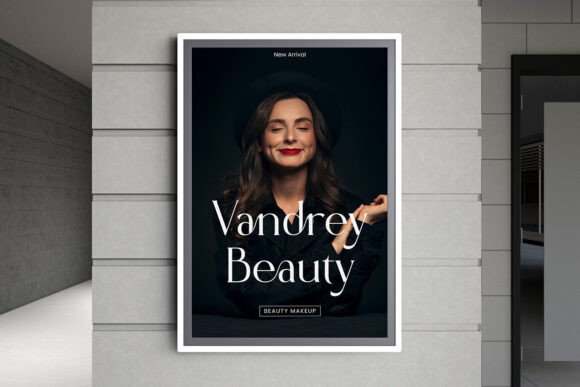
Unleash the Power of Contemporary Sophistication with Amorfatia Font
In the world of typography, fonts play a crucial role in conveying the tone and personality of a brand, product, or artistic project. With the numerous font options available, finding the perfect one that balances elegance, sophistication, and modernity can be a daunting task. However, if you’re looking for a font that effortlessly fuses classical charm with avant-garde flair, look no further than Amorfatia Font.
Introducing Amorfatia: A Striking Serif Display Font
Amorfatia is a meticulously crafted serif display font that exudes an intellectual allure and luxurious charm. With its balanced proportions and delicate lettering, this font is perfect for those seeking to make a statement with their visual identity. Whether you’re a designer, artist, or brand owner, Amorfatia offers a unique blend of firm yet tender nature that commands attention and respect.
The Perfect Blend of Classical and Modern Elements
Amorfatia’s design is rooted in the perfect blend of classical and modern elements. The font’s serif structure pays homage to traditional typography, while its sleek lines and curves inject a modern twist. This harmonious fusion results in a font that is both timeless and contemporary, making it suitable for a wide range of applications.
Key Features of Amorfatia Font
- Balanced Proportions: Amorfatia’s letters are carefully crafted to ensure balance and harmony, creating a visually appealing effect.
- Delicate Lettering: Each letter is meticulously shaped to impart an intellectual allure and luxurious charm.
- Alternative Characters and Ligatures: Amorfatia offers a range of alternative characters and ligatures, providing high levels of design versatility.
- Fluid Versatility: The font’s design allows for seamless adaptability across various applications, from brand identity to social media.
Applications of Amorfatia Font
Amorfatia’s versatility makes it an impeccable choice for a broad spectrum of applications, including:
- Brand Identity: Establish a strong visual presence with Amorfatia’s elegant and sophisticated design.
- Editorial Pieces: Elevate your publications with Amorfatia’s luxurious charm and intellectual allure.
- Logo Design: Create a lasting impression with Amorfatia’s unique blend of classical and modern elements.
- Product Packaging: Add a touch of sophistication and elegance to your product packaging with Amorfatia.
- Social Media: Stand out in the vibrant world of social media with Amorfatia’s visually elegant and intensely modern presence.
The Benefits of Using Amorfatia Font
By choosing Amorfatia Font, you’ll experience a range of benefits, including:
- Unique Visual Identity: Amorfatia’s distinctive design ensures a unique visual identity that sets you apart from the competition.
- High Design Versatility: With alternative characters and ligatures, Amorfatia offers endless possibilities for creative expression.
- Elegance and Sophistication: Amorfatia’s luxurious charm and intellectual allure add a touch of elegance and sophistication to any project.
- Time-Saving: Amorfatia’s versatility saves you time and effort, as it can be used across various applications.
Amorfatia Font is a game-changer for designers, artists, and brand owners seeking to unleash an aura of contemporary sophistication. With its striking serif design, balanced proportions, and delicate lettering, Amorfatia effortlessly fuses classical charm with avant-garde flair. Experience the freedom to explore the realm of visual artistry with Amorfatia, a font designed to facilitate your personal journey of design expression.